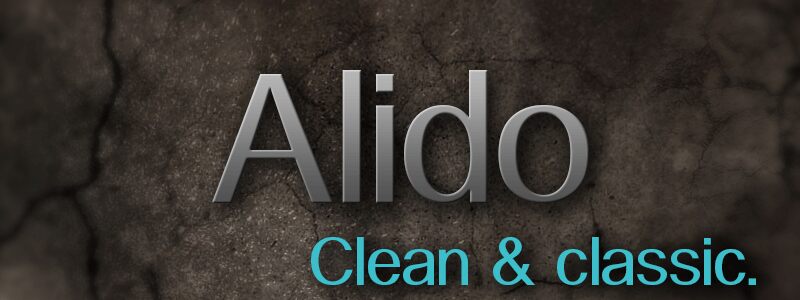
Alido from SummitType Fonts of Summitsoft Corporation is a free light sans serif with broad capitals and a notably airy silhouette. Its fine strokes change width gently, especially through the rounded forms, giving the lettering a refined rather than strictly geometric texture. Lowercase forms keep the line poised and open.
Clean photography and restrained geometric patterns suit its fine lines, making it apt for fashion editorials, gallery posters, and cosmetics packaging. It can also become a refined storefront sign.